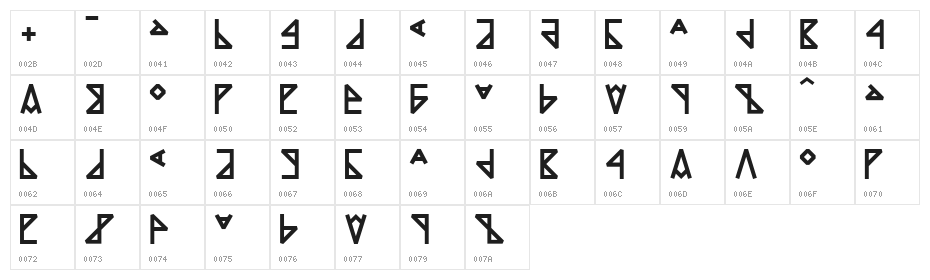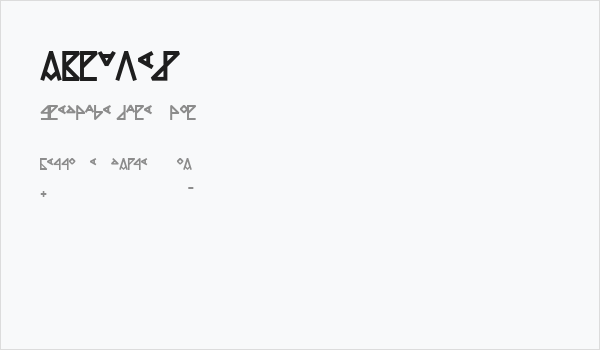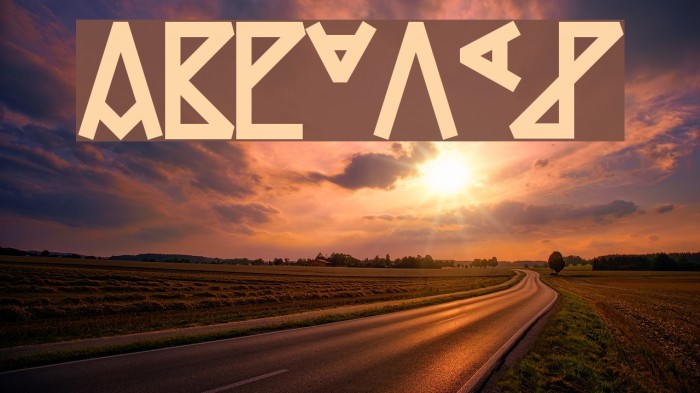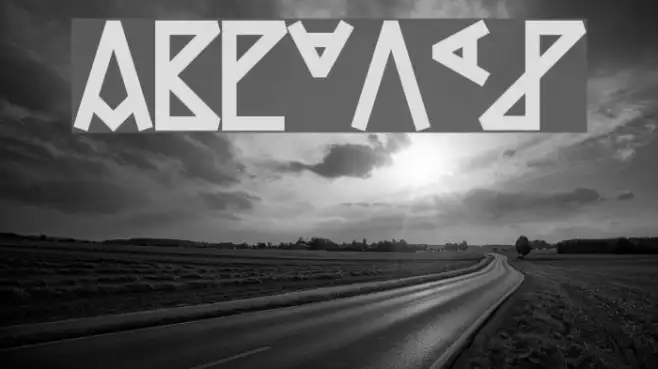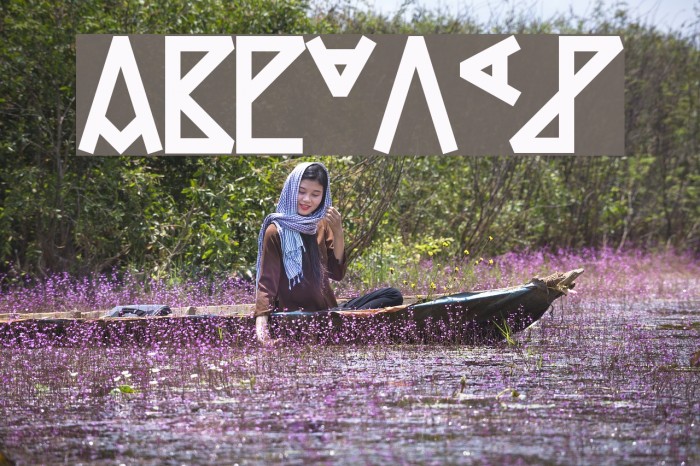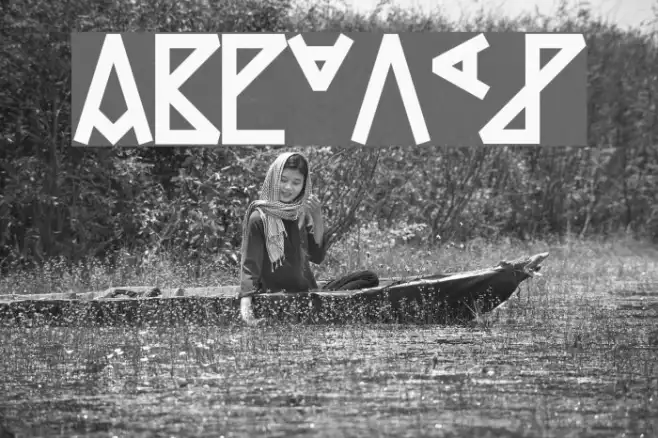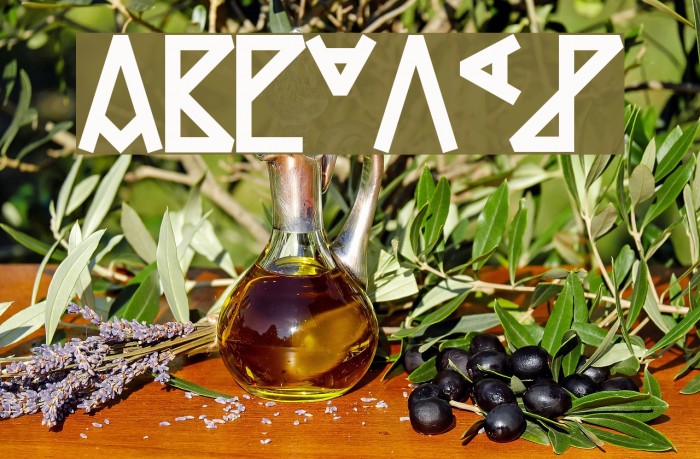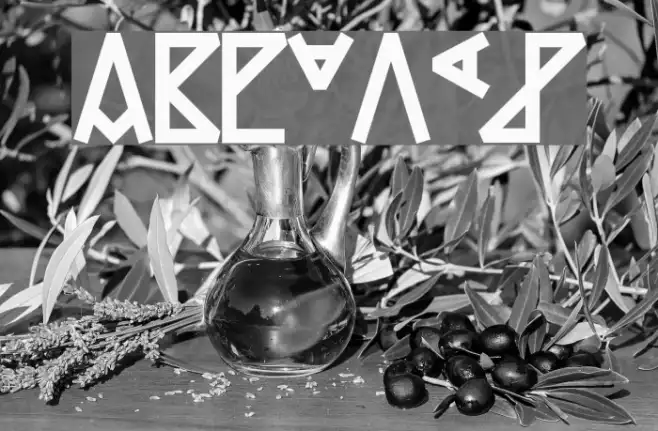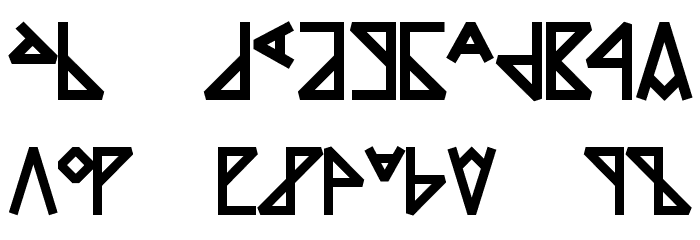
MKRunes Font
MKRunes Description
This font features a unique, angular design reminiscent of ancient runic alphabets. Each character is constructed with sharp, geometric lines and triangular elements, giving it a distinct, cryptic appearance. The style is bold and striking, with a consistent thickness throughout each letterform. The characters are evenly spaced, ensuring readability while maintaining the mysterious aesthetic. This font is ideal for projects that require a touch of the enigmatic or a nod to ancient scripts, making it perfect for fantasy-themed designs or branding that seeks to evoke a sense of mystery and history.
| Use Case | Logos, Headlines, Posters |
| Proposed Projects | Ideal for fantasy book covers, game titles, movie posters, or any project seeking a mysterious or ancient aesthetic. |